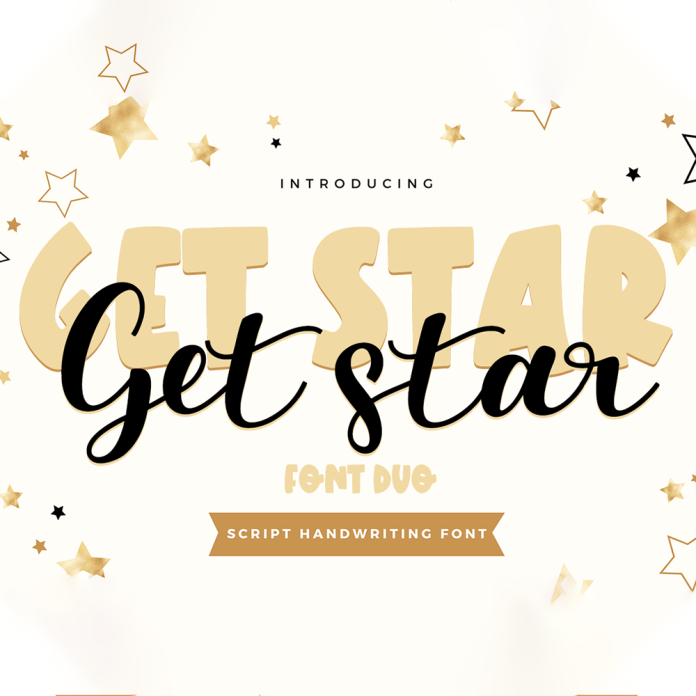
Get Star Font Duo is a stylish and elegant script font that combines a modern calligraphy style with a classic serif font. The duo offers versatility for a wide range of design projects, from branding to wedding invitations. Its unique design features intricate swirls and flourishes, making it perfect for adding a touch of sophistication to your designs.